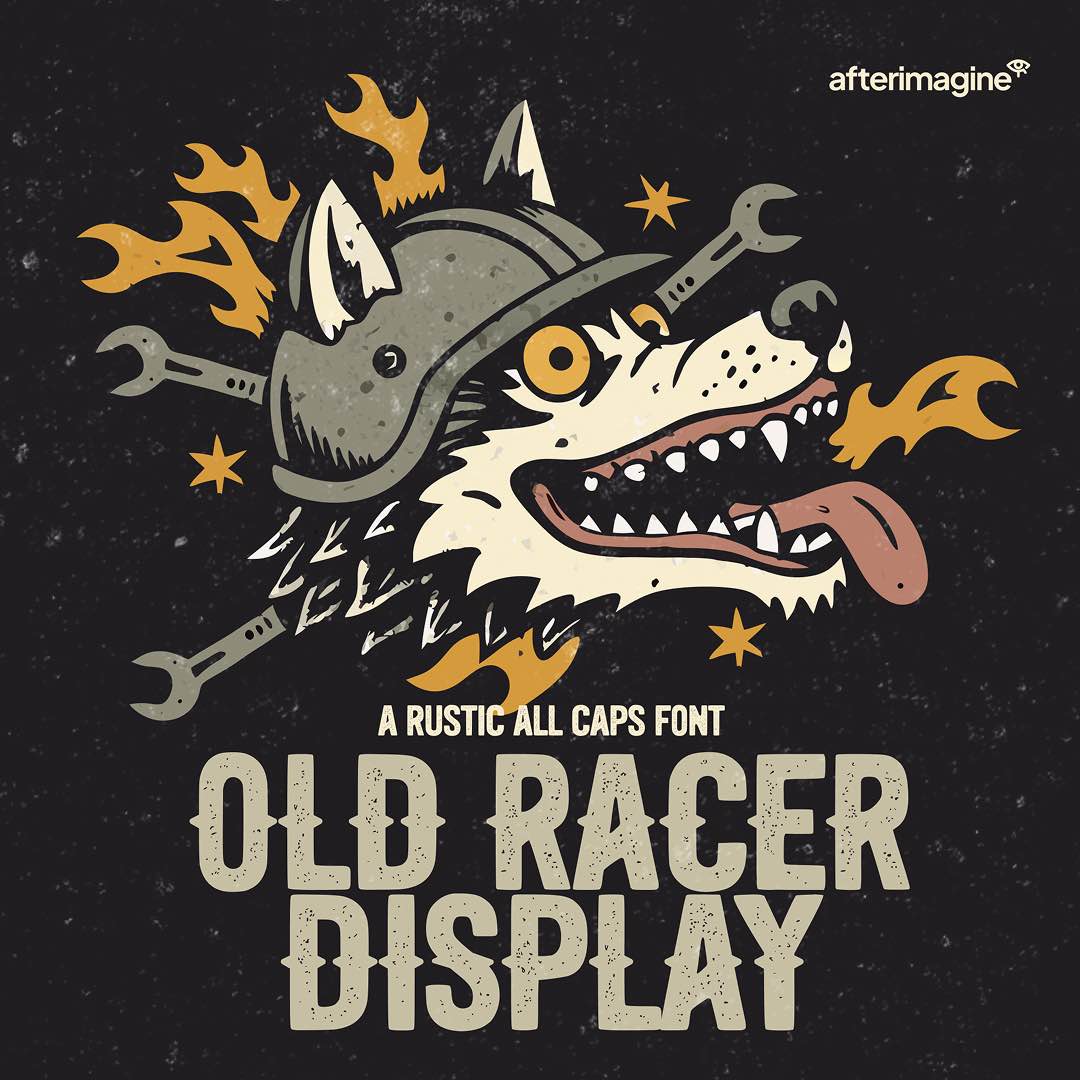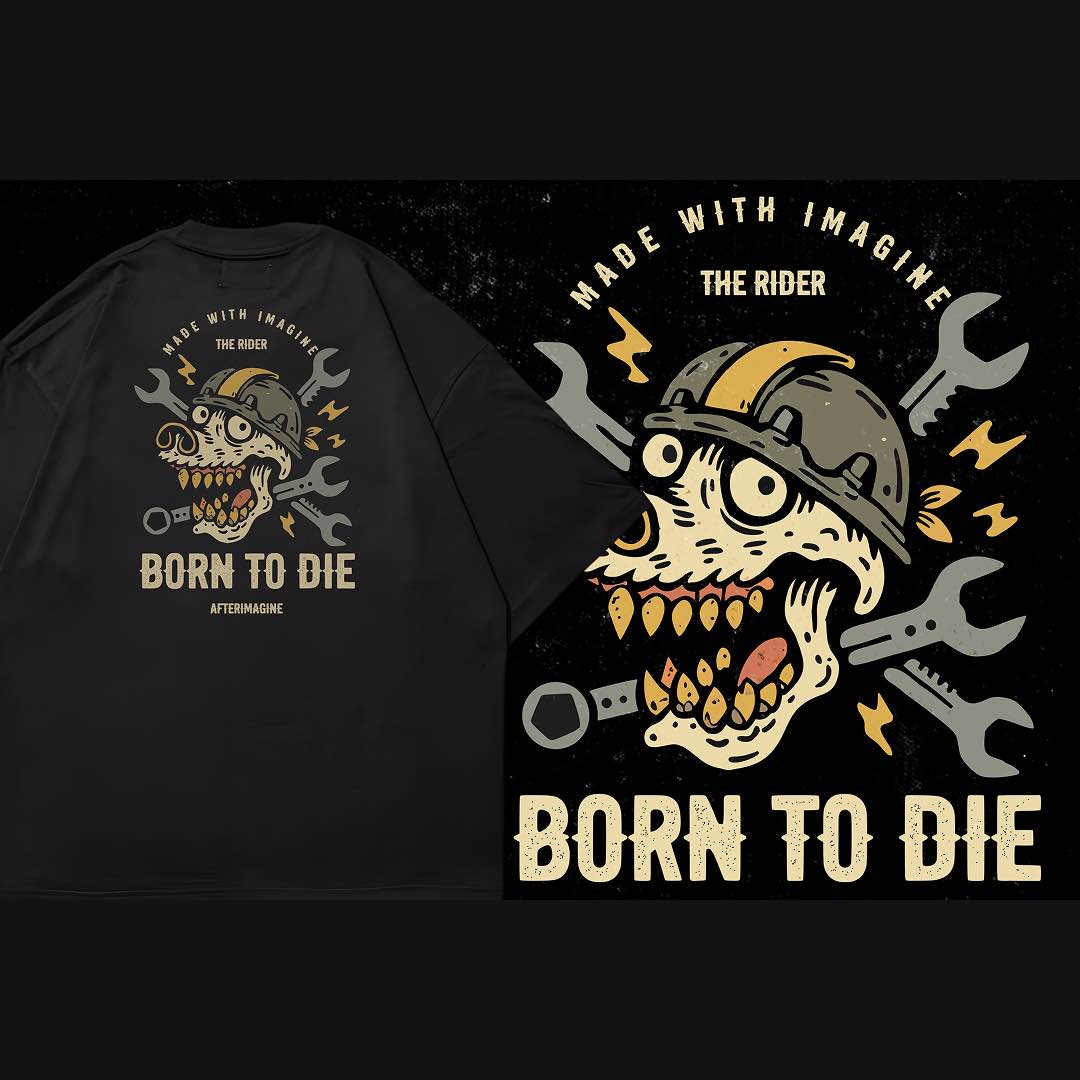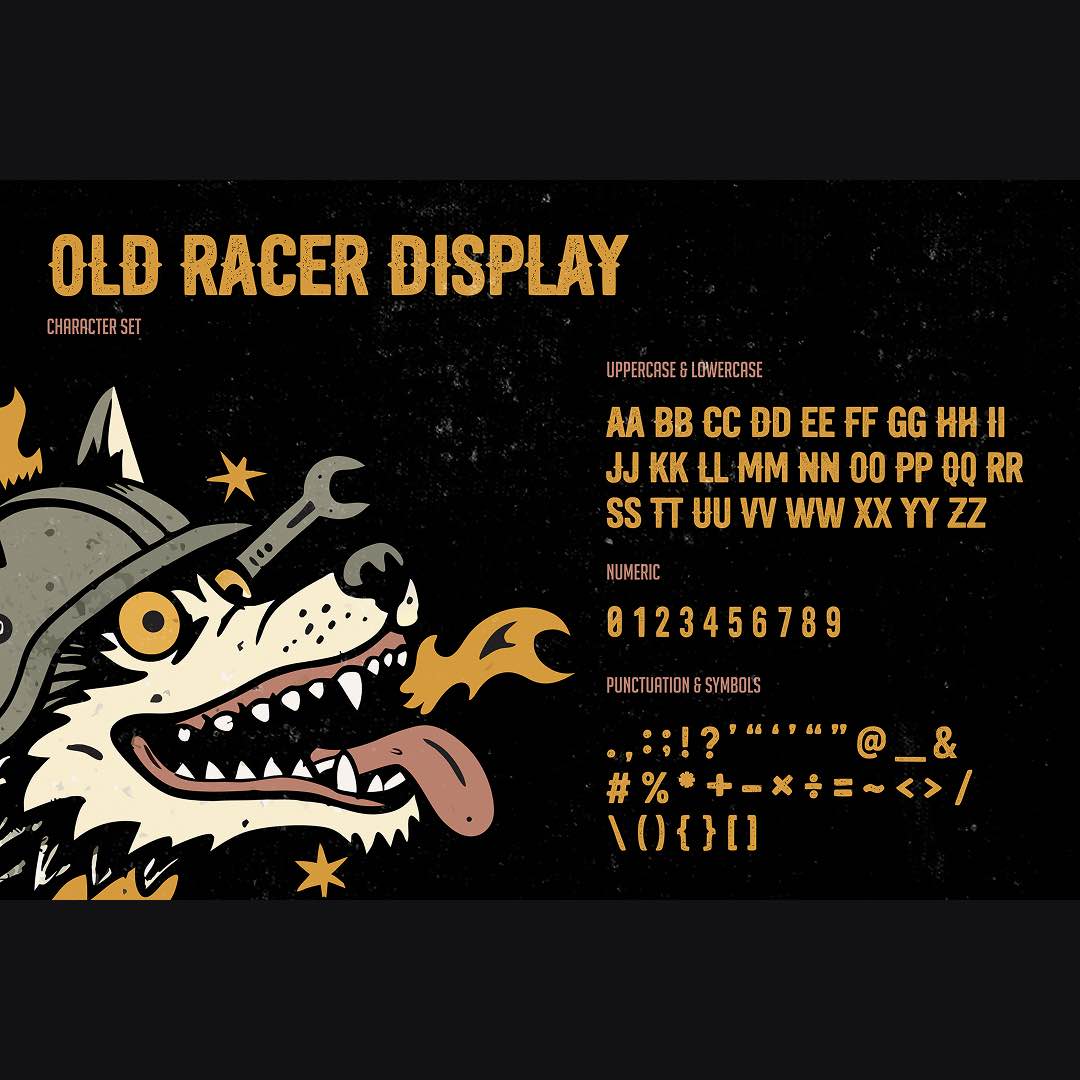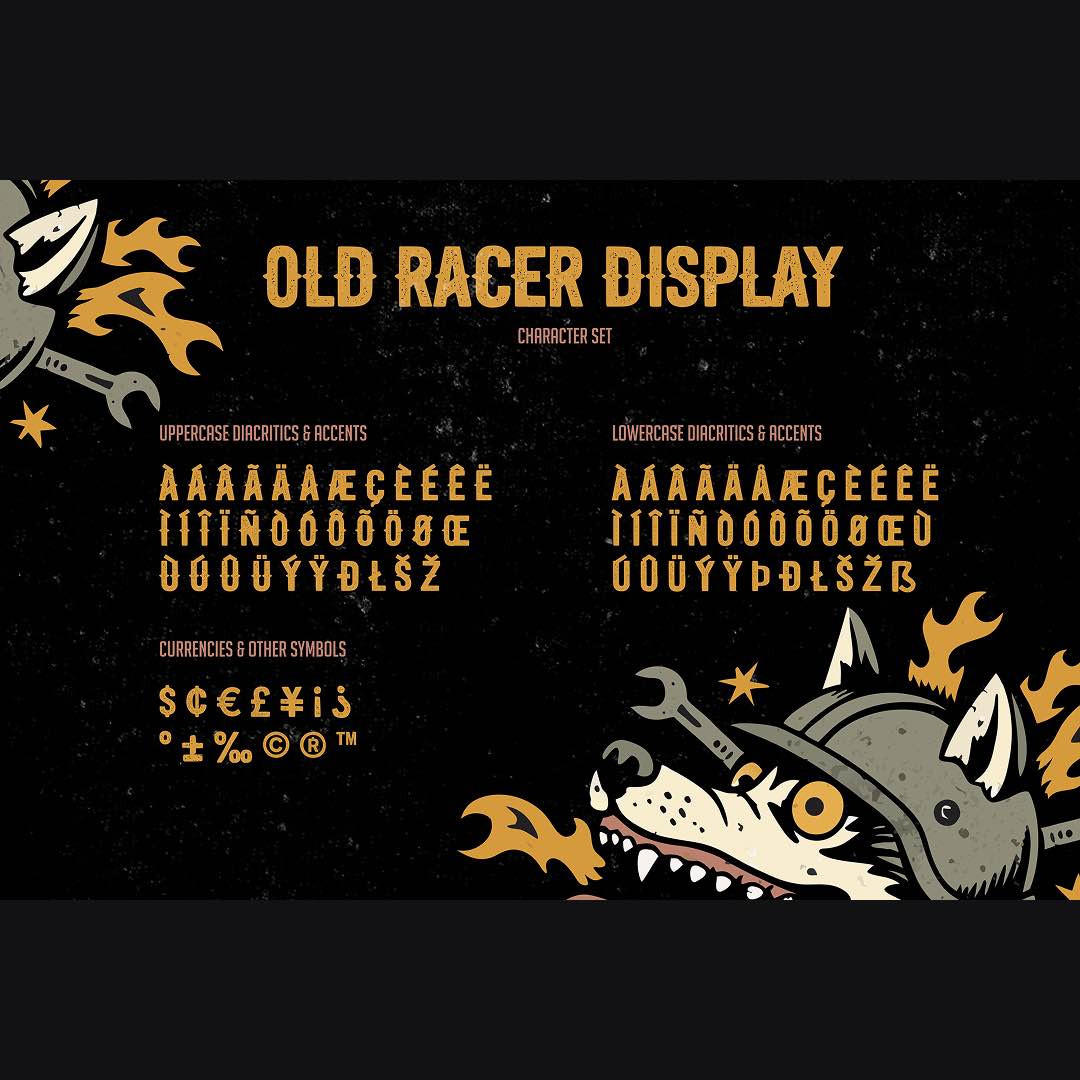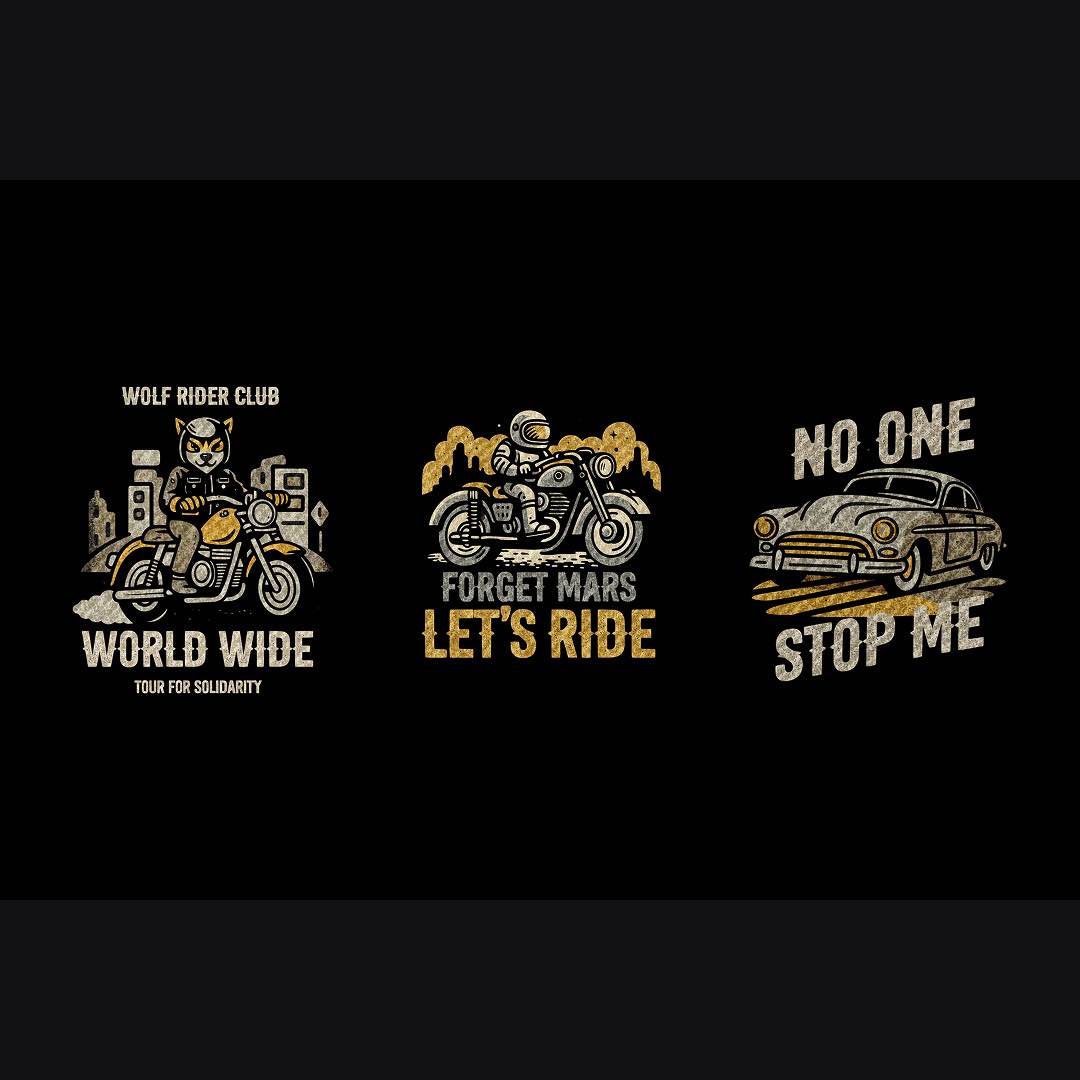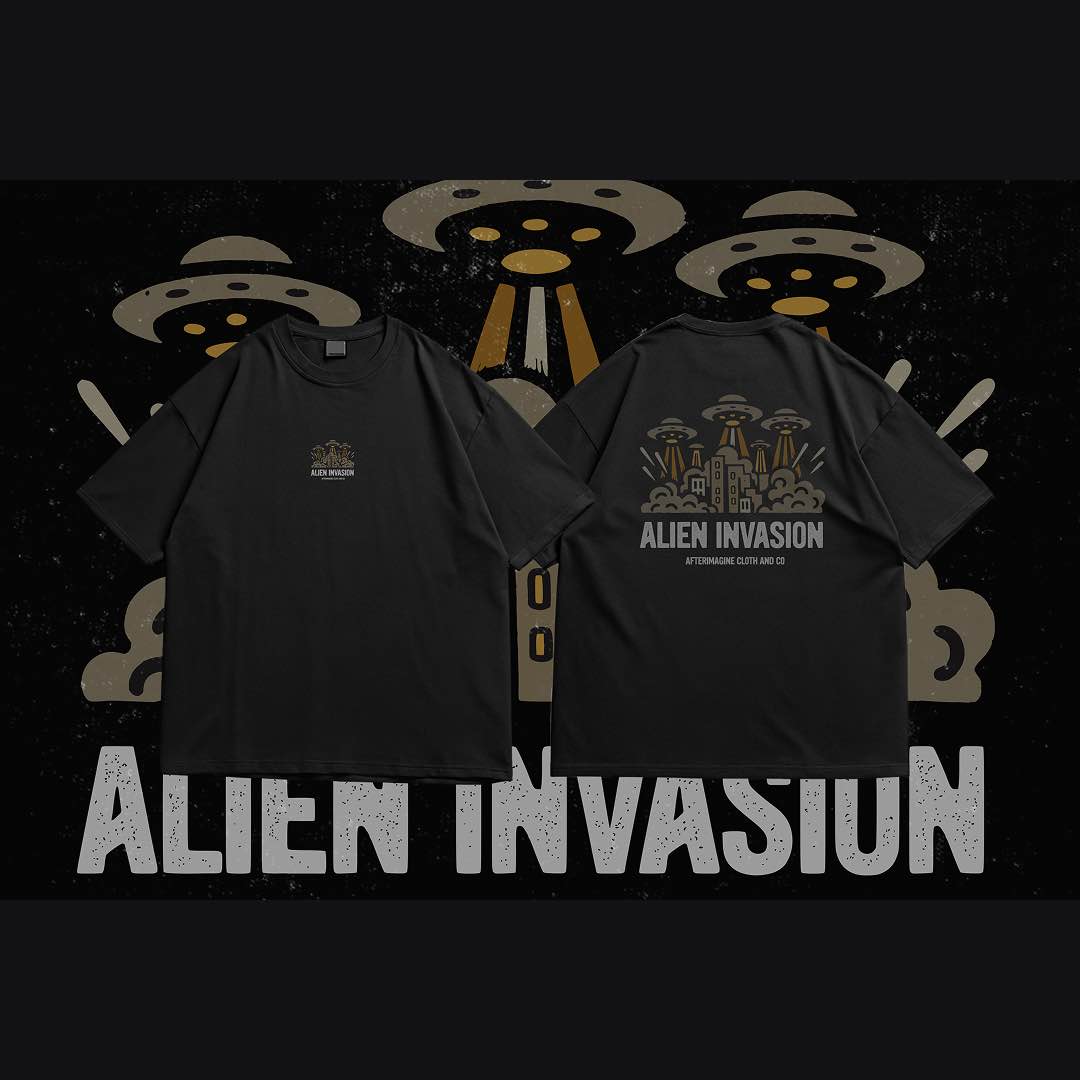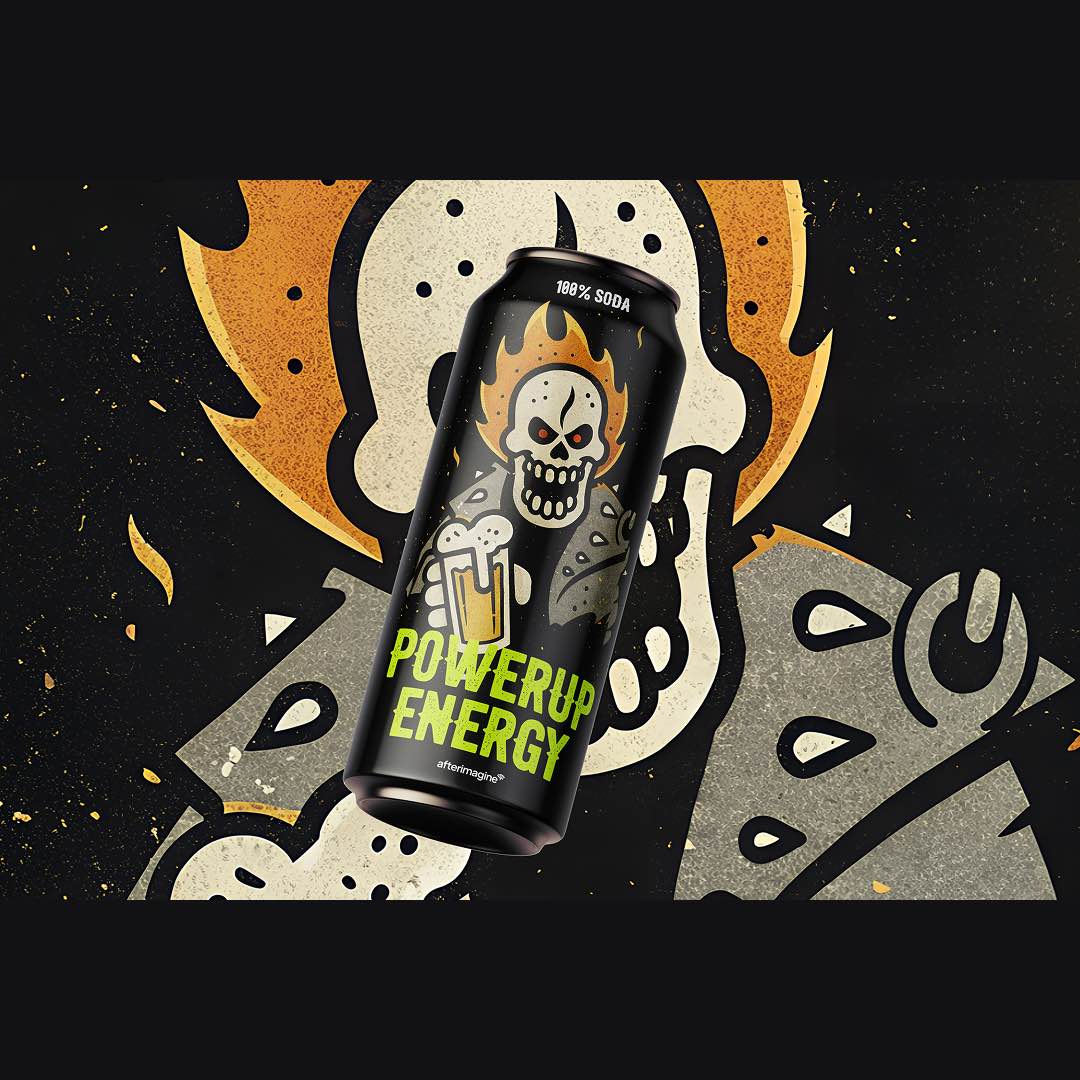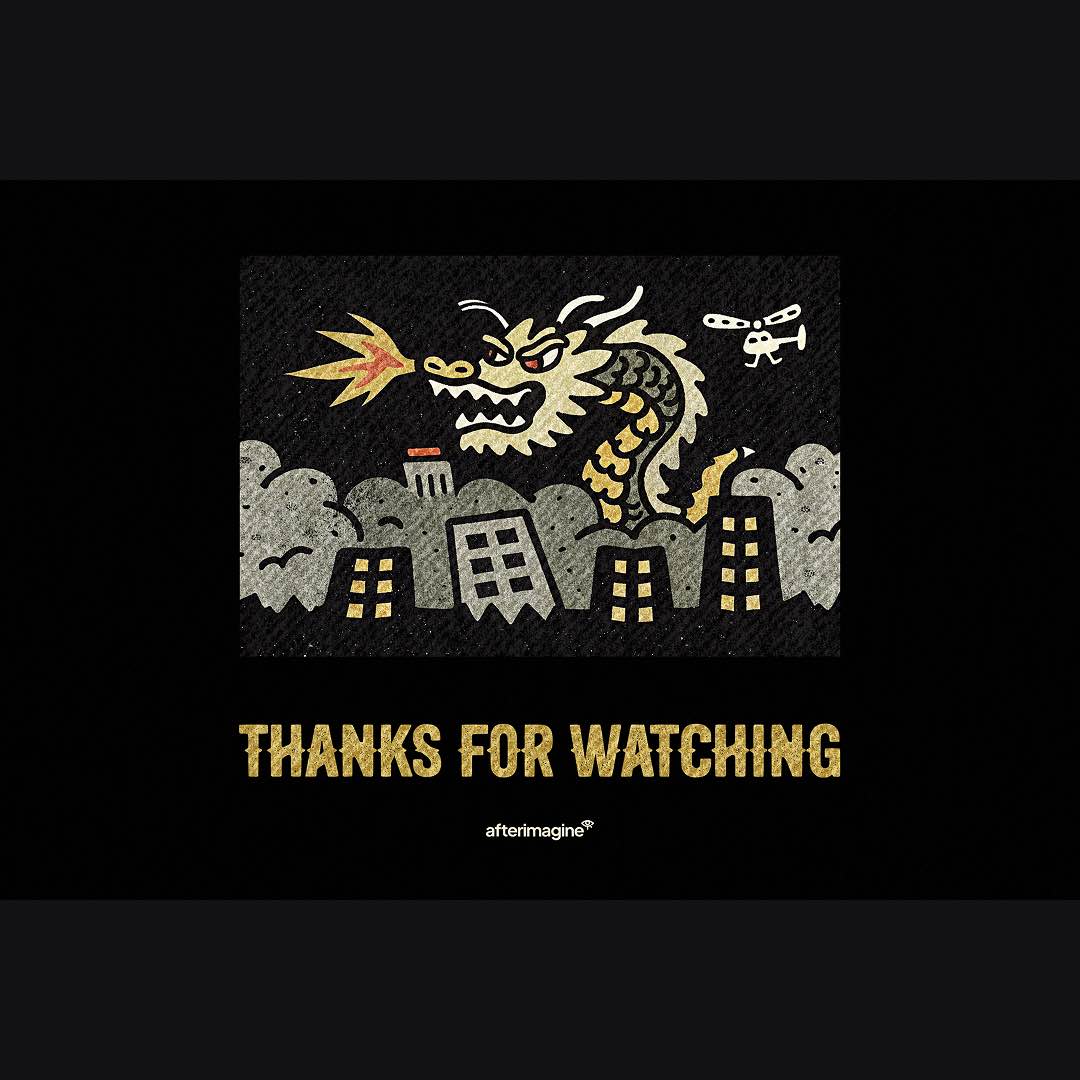
Old Racer Display is a punchy, no-brakes all-caps font that tears down the highway of nostalgia with a wrench in its teeth and fire in its gut.
Think grease-stained posters, busted knuckles, and bootlegged signage from outlaw garages where the rules died screaming. This ain’t no sterile modern sans, Old Racer brings grit, growl, and full-throttle character to your type.
Built for rebel brands, custom tees, moto club merch, burger ads, or anything that smells like gas and rebellion. Fully handcrafted, zero AI. You want edge? You got it.